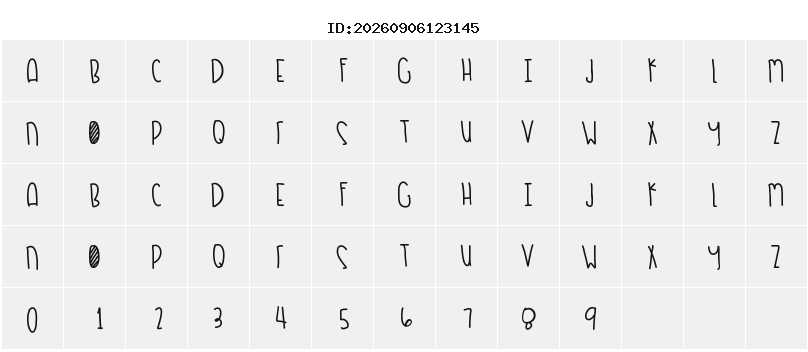
TarracottaWarrior Preview
• Font Name: TarracottaWarrior
• Full Font Name: TarracottaWarrior
About TarracottaWarrior.ttf
TarracottaWarrior.ttf is a modern, elegant sans-serif font designed for ultimate readability and visual harmony. Perfect for branding, headlines, web design, and print materials.